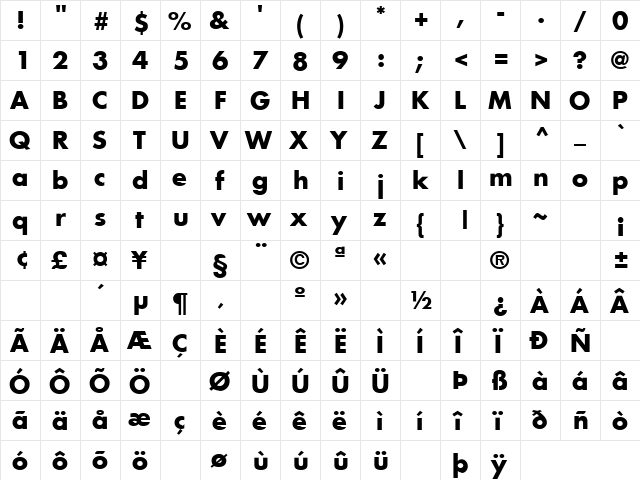
Heartbreaker 7 Regular
Design Context for Heartbreaker 7 Typeface
Heartbreaker 7 is a composed and adaptable typeface that performs quietly and consistently across a wide range of design contexts.